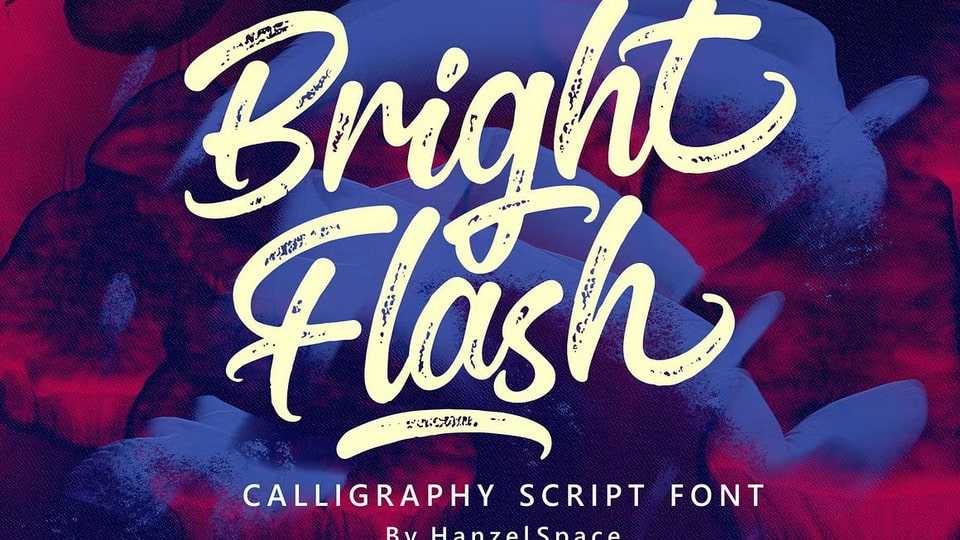
Download Bright Flash font, a calligraphy script typeface, a very cool script based on a textured handwritten script. This type of font is perfectly made to be applied especially in logos, and the other various formal forms such as invitations, labels, logos.